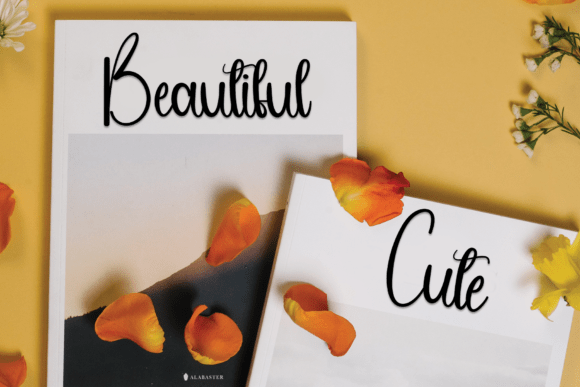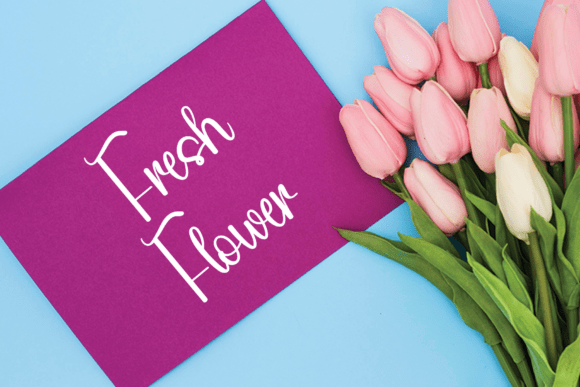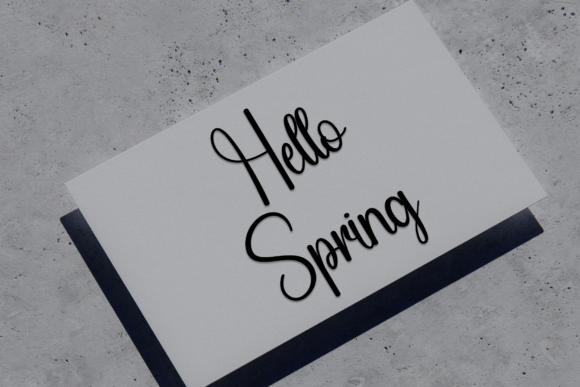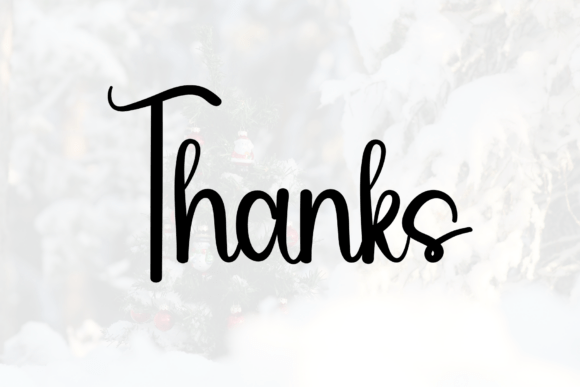
Introducing Christmas Invitation Font: The Perfect Blend of Elegance and Casual Charm
Are you looking for a font that exudes luxury and elegance while still maintaining a casual and sporty vibe? Look no further than the Christmas Invitation Font. This beautiful handwritten font is designed to resemble writing with a marker, giving it a relaxed and effortless feel that’s perfect for a wide range of design applications.
What is Christmas Invitation Font?
Christmas Invitation Font is a unique and versatile typeface that’s ideal for designers and crafters who want to add a touch of sophistication and whimsy to their work. With its marker-drawn aesthetic, this font is sure to capture the attention of your audience and leave a lasting impression.
Key Features of Christmas Invitation Font
- Handwritten with a marker feel: The font’s handwritten style gives it a personal and human touch, making it perfect for designs that require a more approachable and friendly tone.
- Relaxed and sporty vibe: The font’s casual feel makes it ideal for designs that require a laid-back and effortless aesthetic.
- Luxurious and elegant: Despite its casual vibe, the font still exudes a sense of luxury and sophistication, making it perfect for high-end designs.
- Versatile: The font is suitable for a wide range of design applications, from branding and logos to wedding supplies, greeting cards, and marketing promotions.
Uses for Christmas Invitation Font
So, what can you use Christmas Invitation Font for? The possibilities are endless! Here are some ideas to get you started:
- Branding and logos: Use the font to create a unique and memorable brand identity that stands out from the crowd.
- Wedding supplies: Add a touch of elegance and whimsy to your wedding stationery, invitations, and decorations.
- Greeting cards: Create beautiful and heartfelt greeting cards for special occasions like Christmas, birthdays, and anniversaries.
- Fashion and lookbooks: Use the font to add a touch of luxury and sophistication to your fashion designs and lookbooks.
- Marketing promotions: Create eye-catching marketing materials like brochures, flyers, and posters that grab attention and leave a lasting impression.
Why Choose Christmas Invitation Font?
So, why should you choose Christmas Invitation Font for your design projects? Here are just a few reasons:
- Unique and distinctive: The font’s marker-drawn aesthetic makes it stand out from more traditional fonts.
- Easy to read: Despite its handwritten style, the font is clear and easy to read, making it perfect for body text and headlines.
- Customizable: The font can be easily customized to fit your design needs, from adjusting the size and color to adding effects and textures.
Christmas Invitation Font is a versatile and elegant typeface that’s perfect for designers and crafters who want to add a touch of luxury and whimsy to their work. With its marker-drawn aesthetic and relaxed, sporty vibe, this font is sure to capture the attention of your audience and leave a lasting impression. Whether you’re working on a branding project, wedding supplies, or marketing materials, Christmas Invitation Font is the perfect choice.